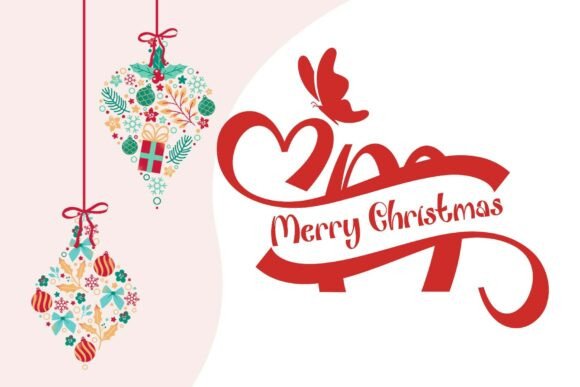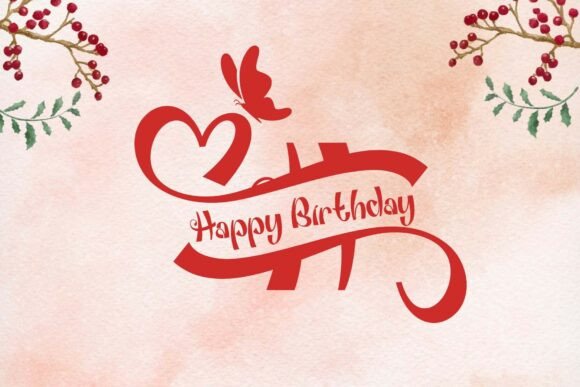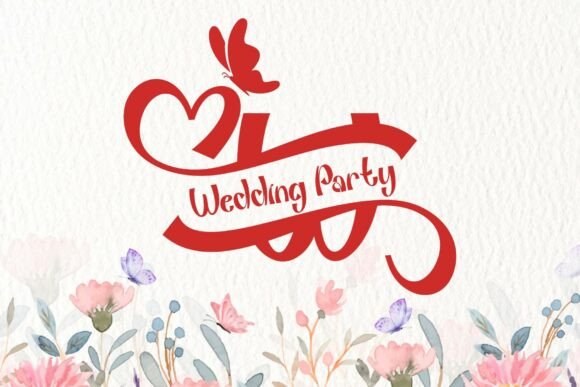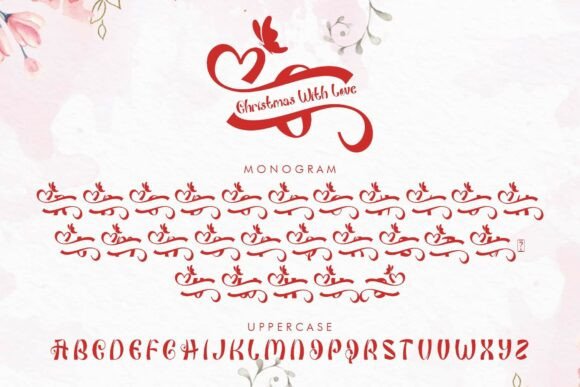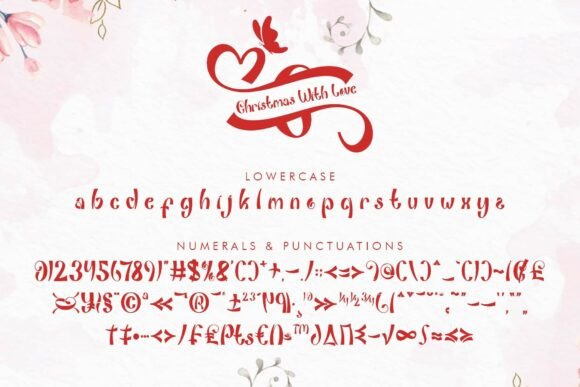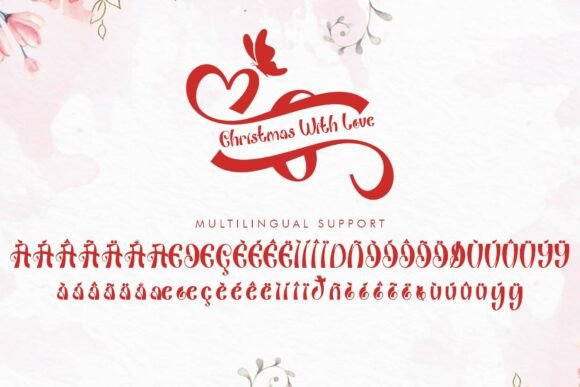
Introduction to Christmas with Love Font
“Christmas With Love” is a beautiful and cute monogram font.
It features uppercase and lowercase letters, monograms, numerals, punctuations, and multilingual support It’s perfect for Christmas, fall, autumn, Halloween, Valentine’s Day, weddings, invitations, winter, summer, Easter, engagements, print, spring, t-shirts, logos, posters, business branding, social media, and more.
Key Features of Christmas with Love Font